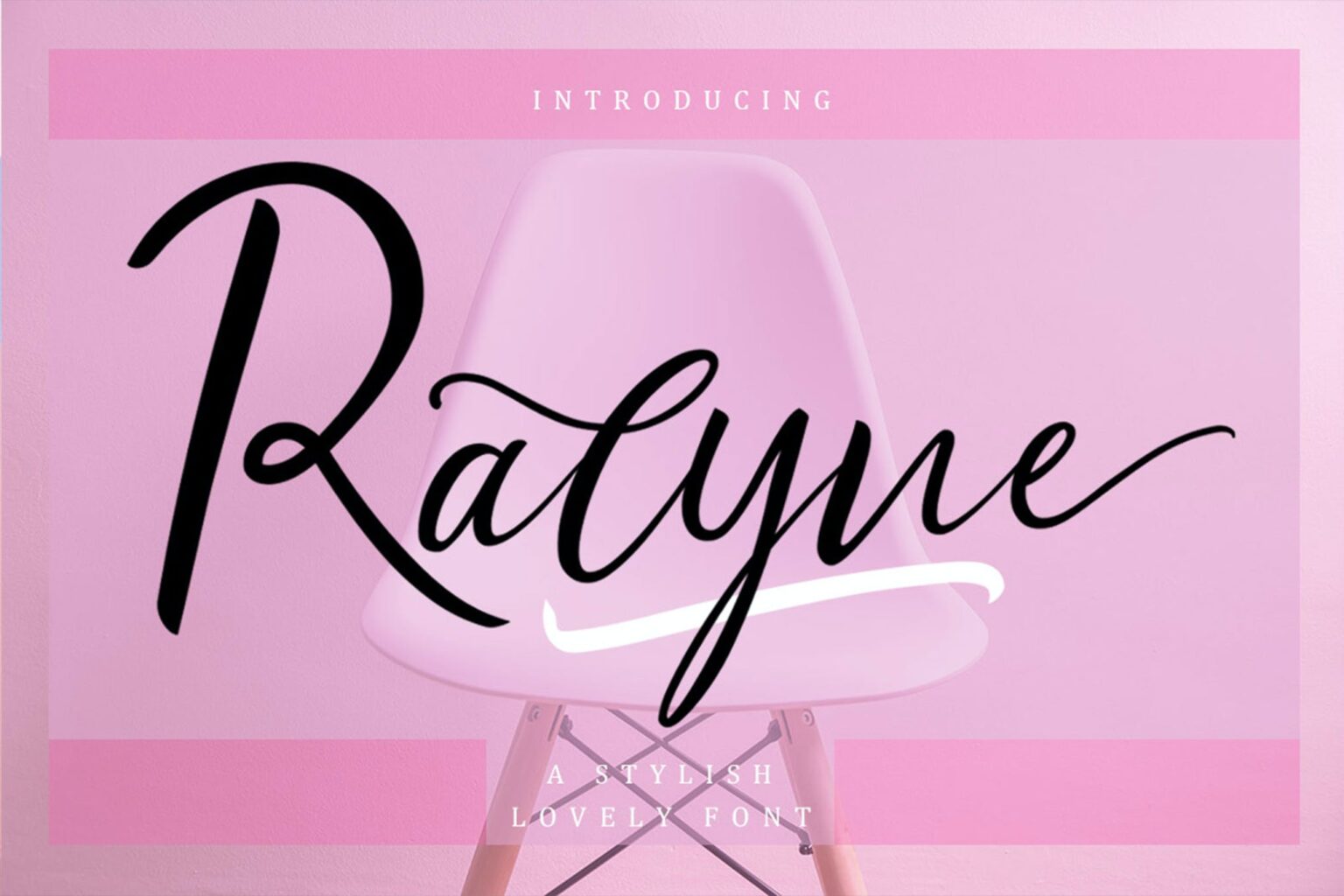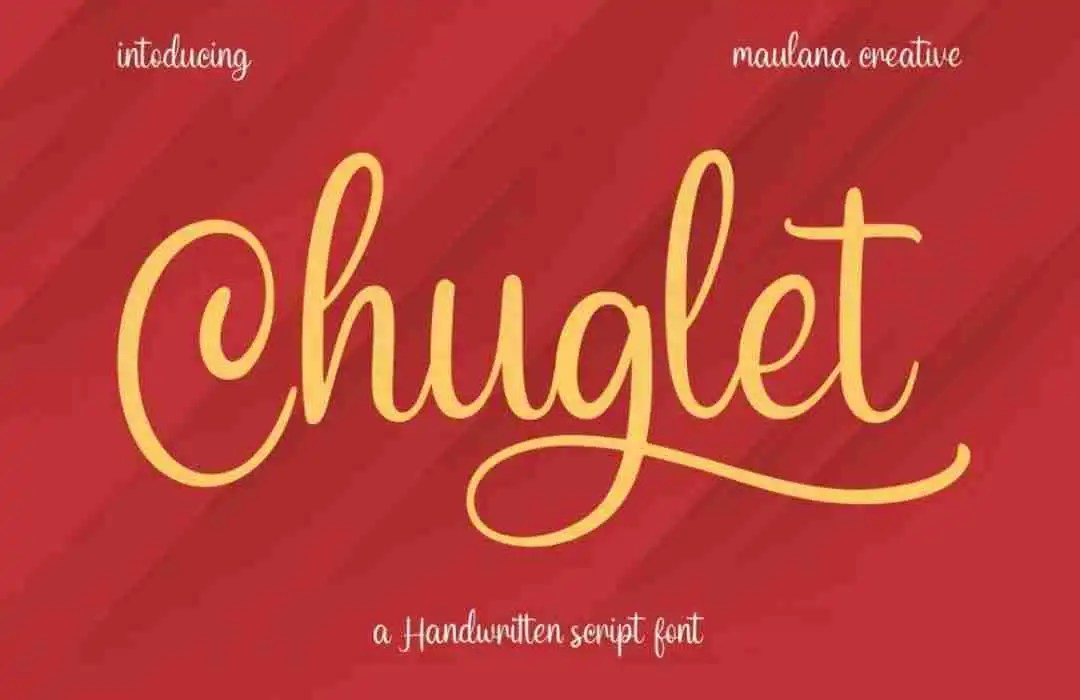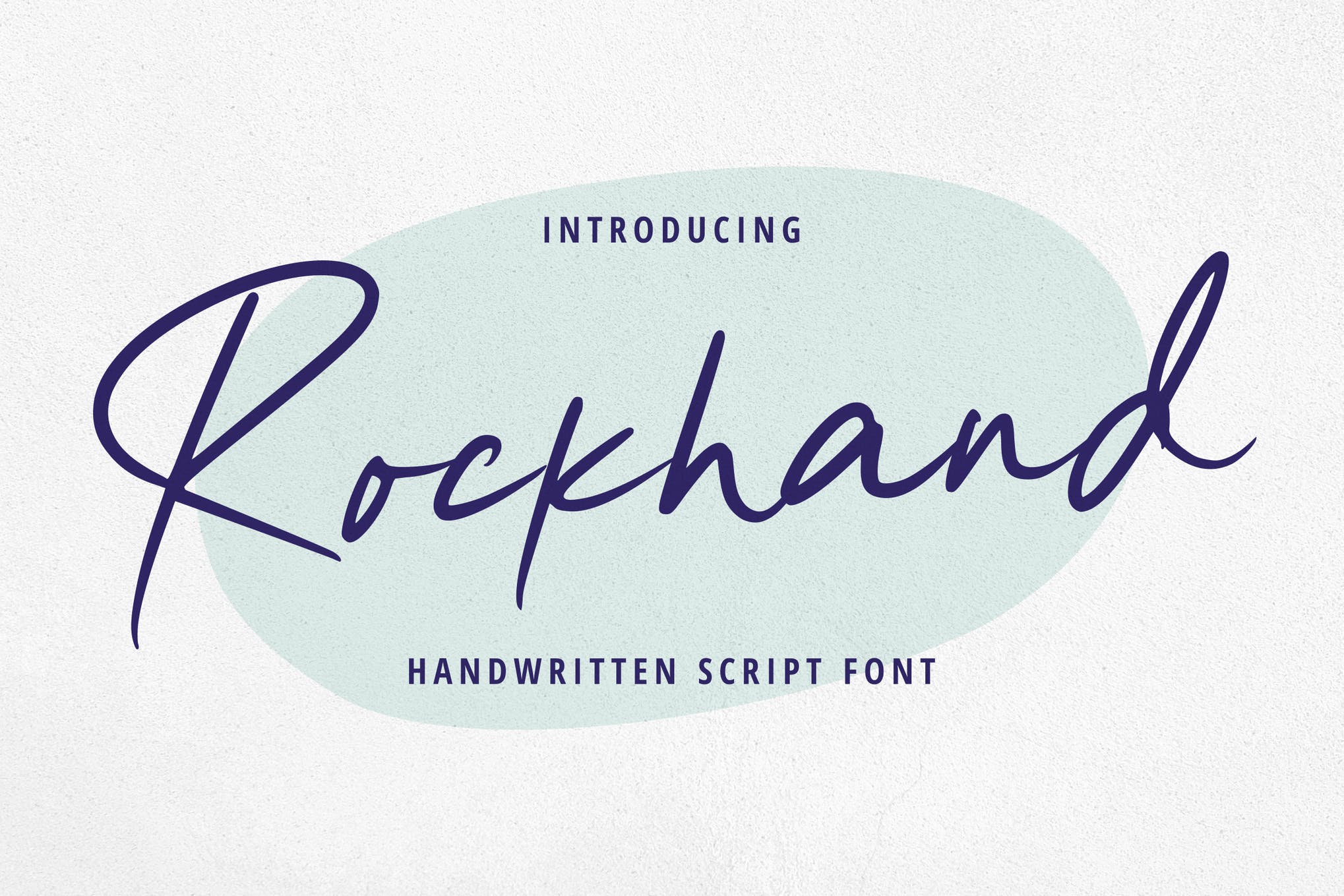
Best Cursive Fonts Reddit . I selected the following script fonts for the originality and overall. You might try writing it with a marker and scanning in and tracing. I'm impressed with scripts fonts that really utilize the features of opentype. This article begins a series of posts to help you quickly identify some of the best adobe fonts to use in indesign. Explore the best cursive & script fonts to give your projects a unique appeal. Cursive fonts add a personal touch to designs. Or start with a cursive font and altering the specific letters in the. Even if you don’t have particularly good handwriting, finding. Make a note, modernline, and adobe handwriting are the best fonts to use on this list if you’re looking for a realistic handwriting font. If you want a handwritten typeface, it’s really best practice to create it yourself.
You might try writing it with a marker and scanning in and tracing. Make a note, modernline, and adobe handwriting are the best fonts to use on this list if you’re looking for a realistic handwriting font. Cursive fonts add a personal touch to designs. Explore the best cursive & script fonts to give your projects a unique appeal. I'm impressed with scripts fonts that really utilize the features of opentype. Or start with a cursive font and altering the specific letters in the. Even if you don’t have particularly good handwriting, finding. This article begins a series of posts to help you quickly identify some of the best adobe fonts to use in indesign. If you want a handwritten typeface, it’s really best practice to create it yourself. I selected the following script fonts for the originality and overall.
Best Cursive Fonts Reddit Make a note, modernline, and adobe handwriting are the best fonts to use on this list if you’re looking for a realistic handwriting font. Make a note, modernline, and adobe handwriting are the best fonts to use on this list if you’re looking for a realistic handwriting font. You might try writing it with a marker and scanning in and tracing. Even if you don’t have particularly good handwriting, finding. This article begins a series of posts to help you quickly identify some of the best adobe fonts to use in indesign. I'm impressed with scripts fonts that really utilize the features of opentype. Or start with a cursive font and altering the specific letters in the. Cursive fonts add a personal touch to designs. Explore the best cursive & script fonts to give your projects a unique appeal. I selected the following script fonts for the originality and overall. If you want a handwritten typeface, it’s really best practice to create it yourself.
30+ Best Cursive & Script Fonts Best Cursive Fonts Reddit Make a note, modernline, and adobe handwriting are the best fonts to use on this list if you’re looking for a realistic handwriting font. Even if you don’t have particularly good handwriting, finding. Cursive fonts add a personal touch to designs. I selected the following script fonts for the originality and overall. This article begins a series of posts to. Best Cursive Fonts Reddit.
10 of the BEST Script Fonts from Creative Market Ave Mateiu Best Best Cursive Fonts Reddit Or start with a cursive font and altering the specific letters in the. I'm impressed with scripts fonts that really utilize the features of opentype. Make a note, modernline, and adobe handwriting are the best fonts to use on this list if you’re looking for a realistic handwriting font. If you want a handwritten typeface, it’s really best practice to. Best Cursive Fonts Reddit.
45 Best Cursive Calligraphy Fonts to Download Envato Tuts+ Best Cursive Fonts Reddit Make a note, modernline, and adobe handwriting are the best fonts to use on this list if you’re looking for a realistic handwriting font. Explore the best cursive & script fonts to give your projects a unique appeal. I selected the following script fonts for the originality and overall. I'm impressed with scripts fonts that really utilize the features of. Best Cursive Fonts Reddit.
45 Best Cursive Calligraphy Fonts to Download Envato Tuts+ Best Cursive Fonts Reddit This article begins a series of posts to help you quickly identify some of the best adobe fonts to use in indesign. If you want a handwritten typeface, it’s really best practice to create it yourself. Explore the best cursive & script fonts to give your projects a unique appeal. You might try writing it with a marker and scanning. Best Cursive Fonts Reddit.
17 Best Cursive Calligraphy Fonts in 2023 Cursive calligraphy fonts Best Cursive Fonts Reddit I selected the following script fonts for the originality and overall. Explore the best cursive & script fonts to give your projects a unique appeal. Even if you don’t have particularly good handwriting, finding. Or start with a cursive font and altering the specific letters in the. This article begins a series of posts to help you quickly identify some. Best Cursive Fonts Reddit.
cursive fonts Archives Hipsthetic Best Cursive Fonts Reddit If you want a handwritten typeface, it’s really best practice to create it yourself. Cursive fonts add a personal touch to designs. You might try writing it with a marker and scanning in and tracing. Explore the best cursive & script fonts to give your projects a unique appeal. This article begins a series of posts to help you quickly. Best Cursive Fonts Reddit.
15+ best cursive fonts for branding and logos (Free and premium) Desircle Best Cursive Fonts Reddit I'm impressed with scripts fonts that really utilize the features of opentype. This article begins a series of posts to help you quickly identify some of the best adobe fonts to use in indesign. Cursive fonts add a personal touch to designs. Explore the best cursive & script fonts to give your projects a unique appeal. If you want a. Best Cursive Fonts Reddit.
Creating a design and trying to find a script or cursive font on Canva Best Cursive Fonts Reddit Make a note, modernline, and adobe handwriting are the best fonts to use on this list if you’re looking for a realistic handwriting font. You might try writing it with a marker and scanning in and tracing. Cursive fonts add a personal touch to designs. Or start with a cursive font and altering the specific letters in the. I'm impressed. Best Cursive Fonts Reddit.
40 of the best cursive fonts for making printables Best cursive fonts Best Cursive Fonts Reddit Cursive fonts add a personal touch to designs. If you want a handwritten typeface, it’s really best practice to create it yourself. Make a note, modernline, and adobe handwriting are the best fonts to use on this list if you’re looking for a realistic handwriting font. Explore the best cursive & script fonts to give your projects a unique appeal.. Best Cursive Fonts Reddit.